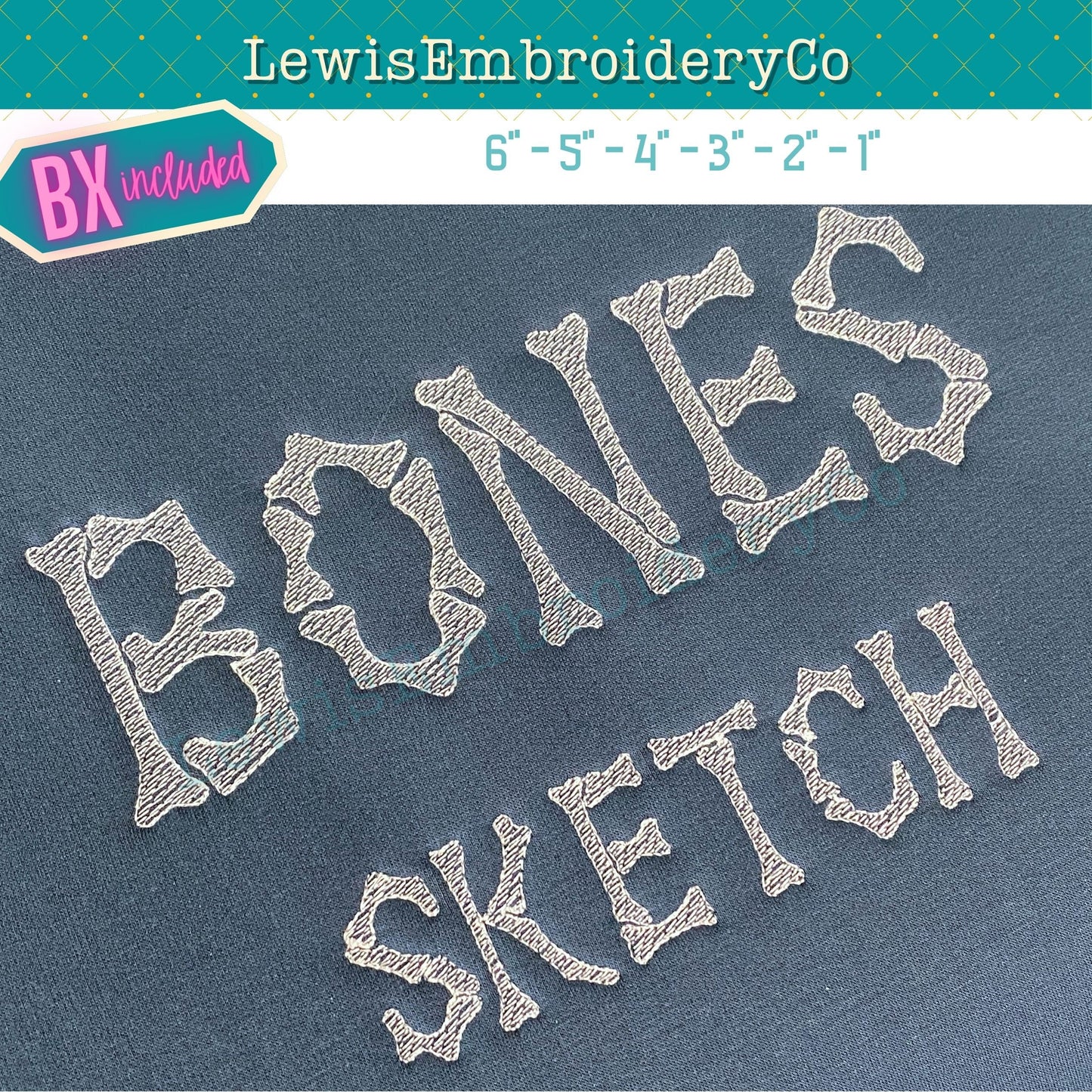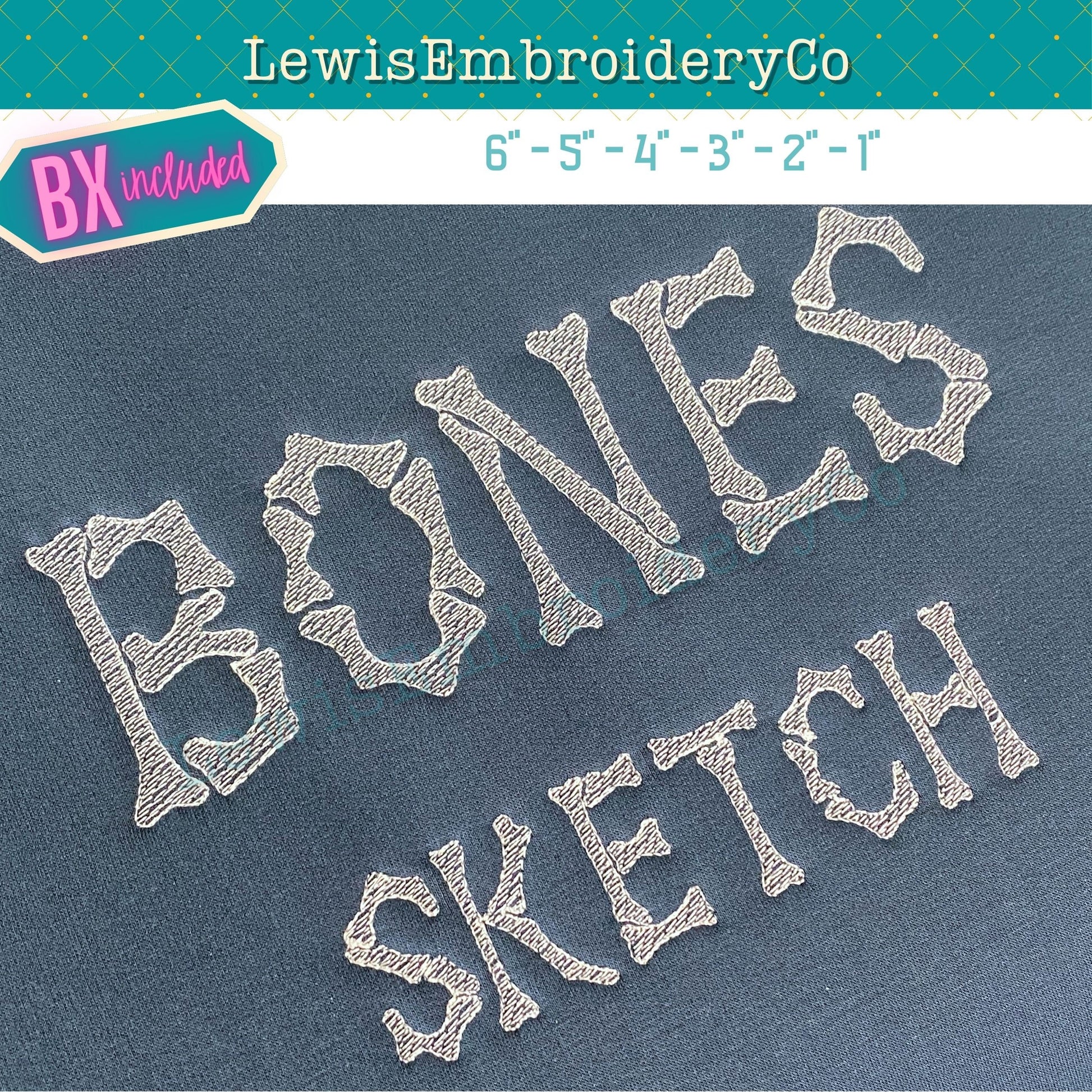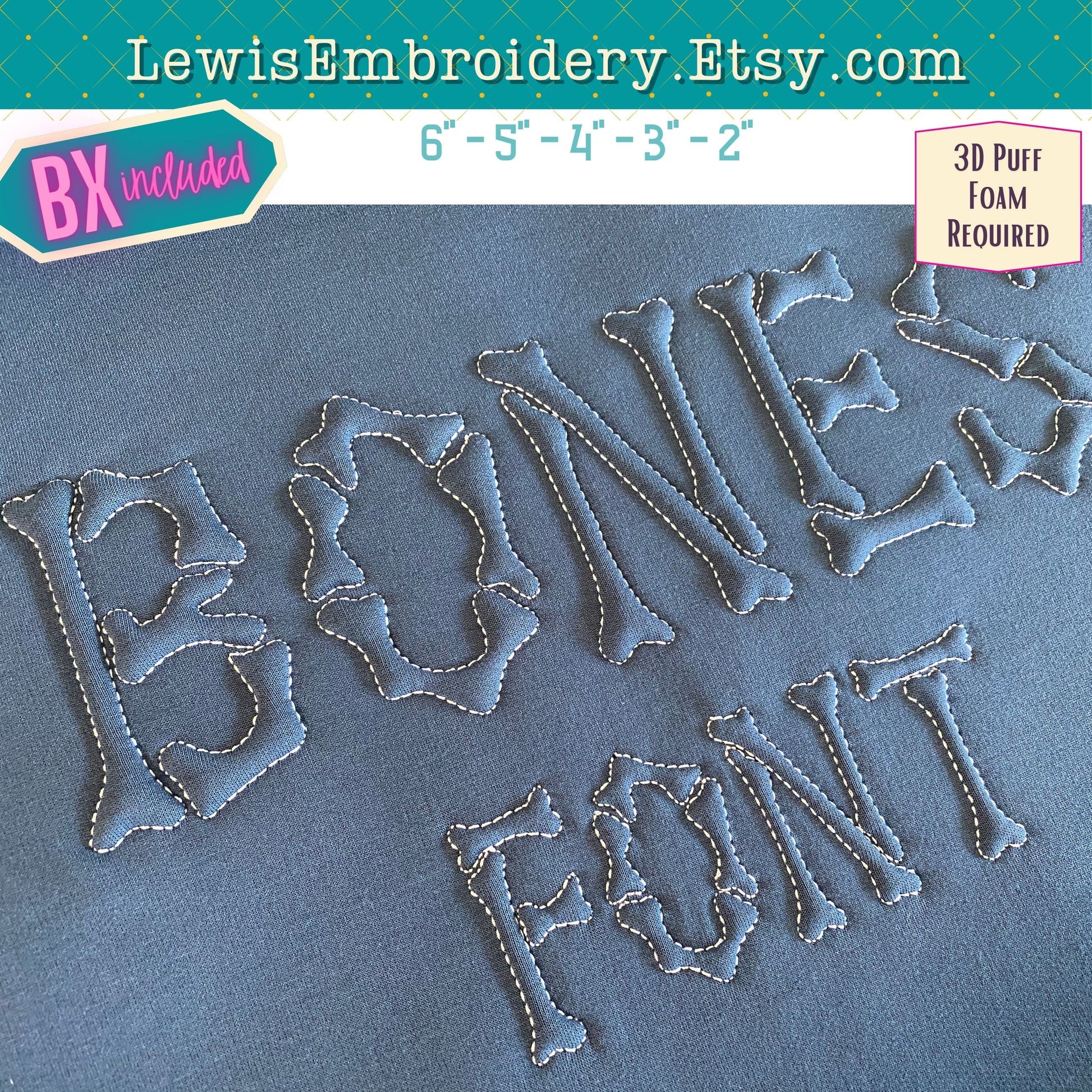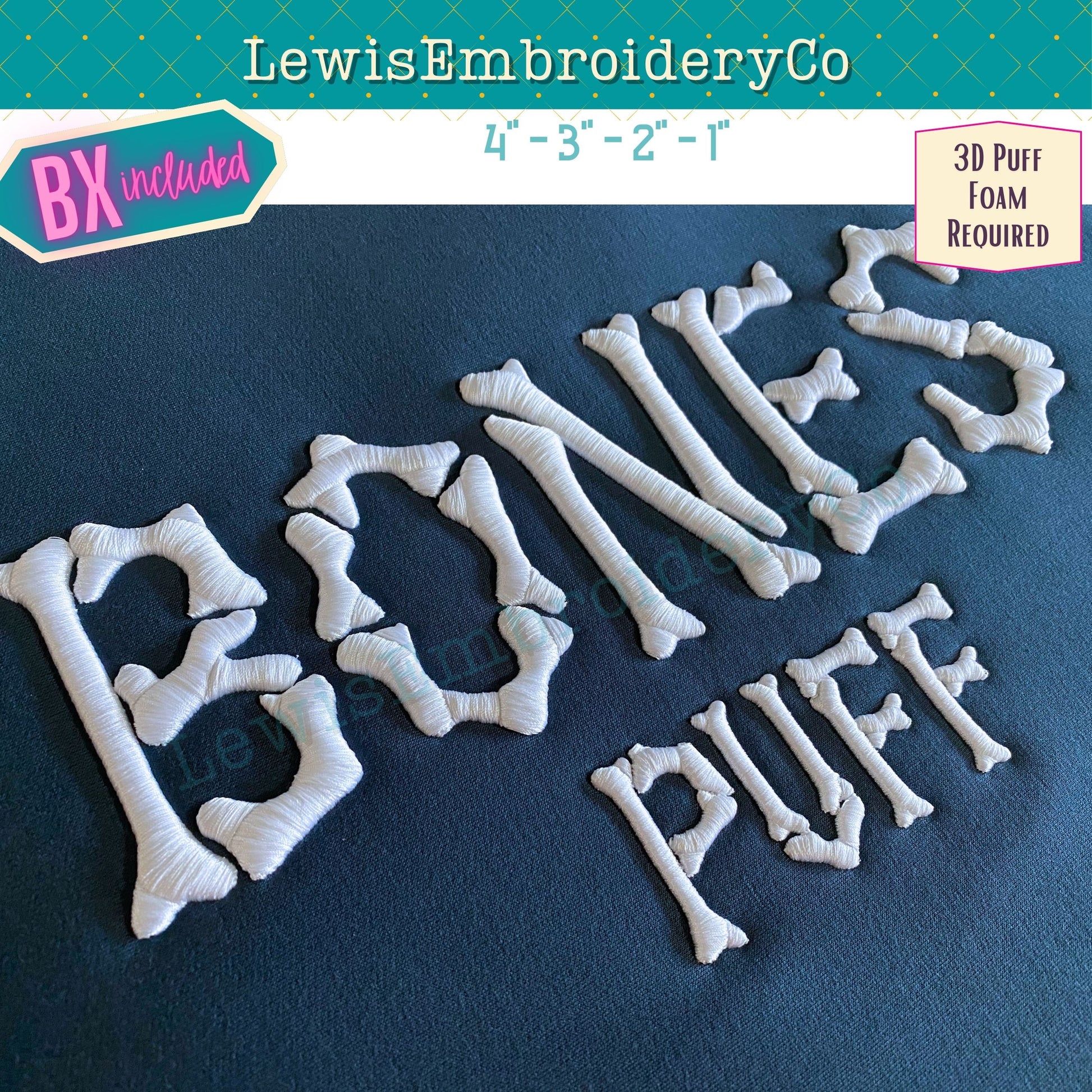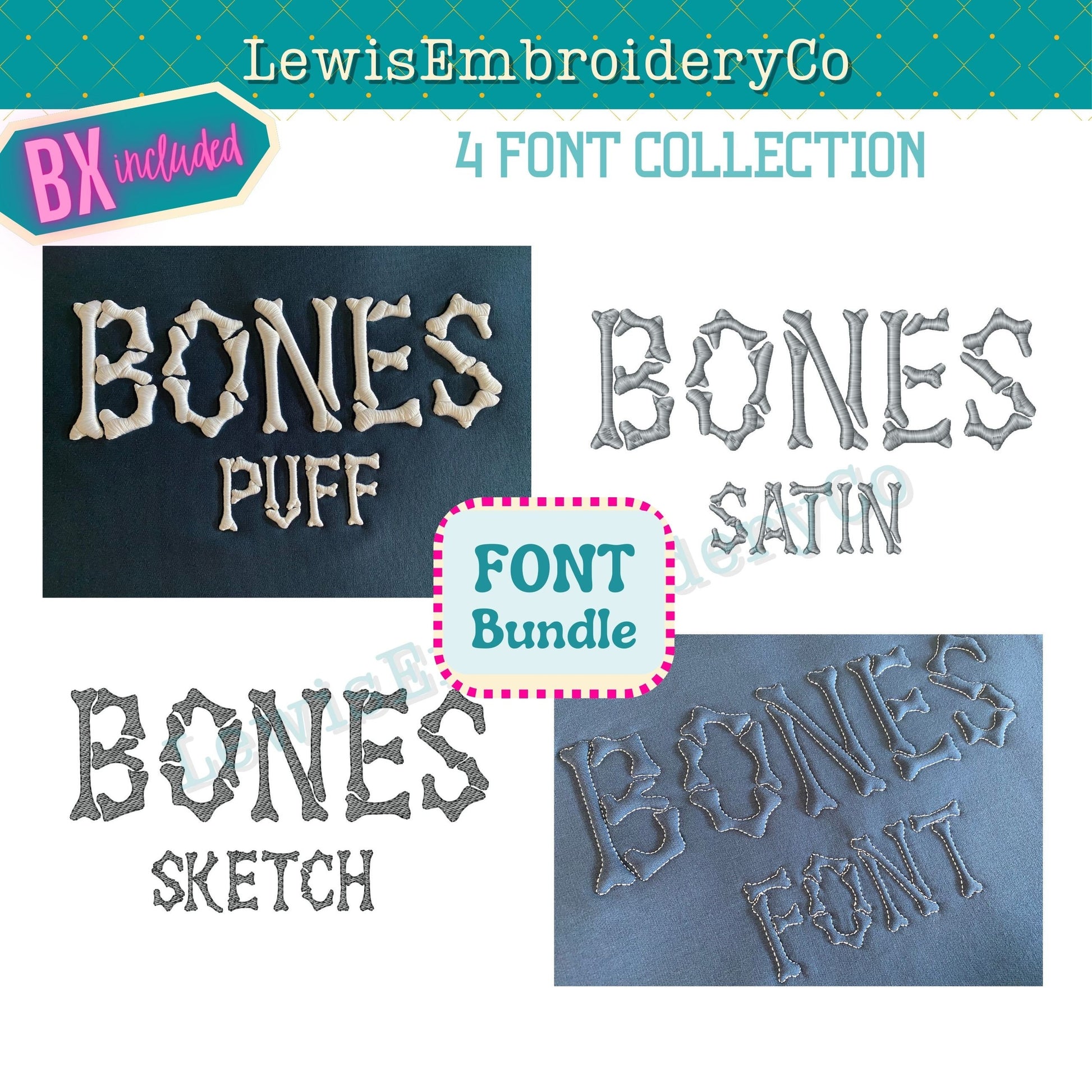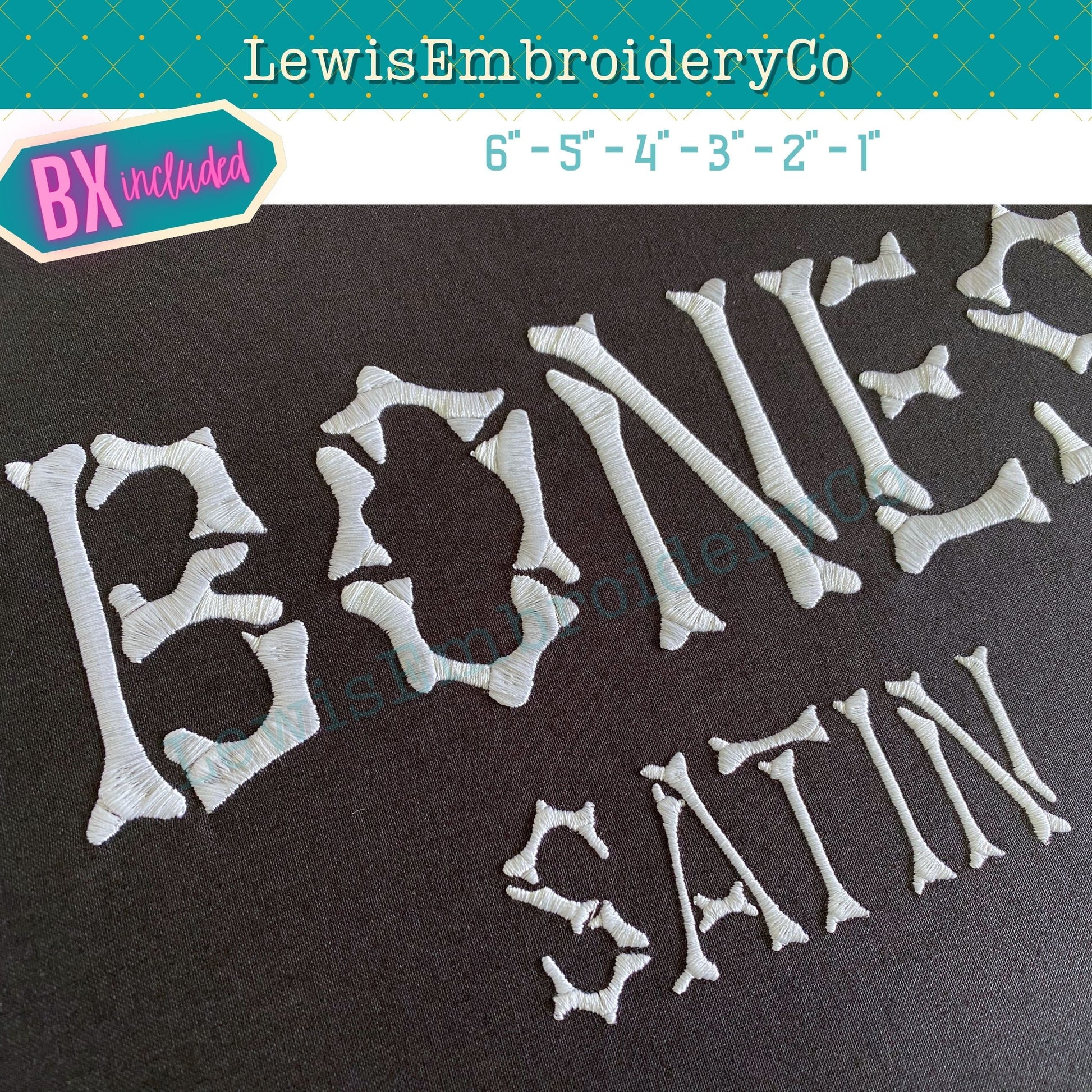
Bones, Machine Embroidery Font Collection - With BX - (PDF Tutorials Included)
Collection Bones Embroidery Font - Puffy Foam Machine Embroidery - Halloween Embroidery Design - BX Font - Skeleton Font - 3D Puff, Embossed
Each of these fonts has a different size range that it will come in, and the details can be found in the listing pictures.